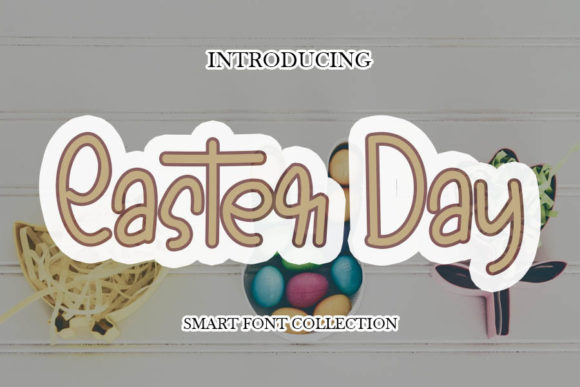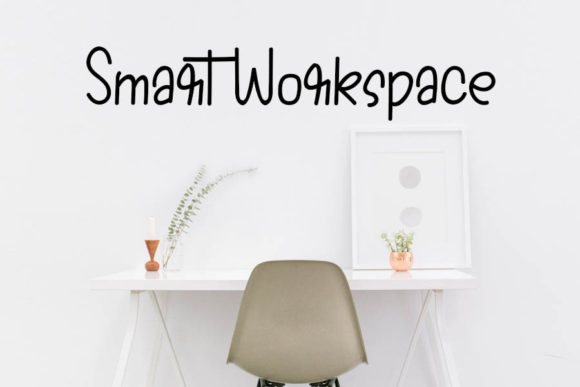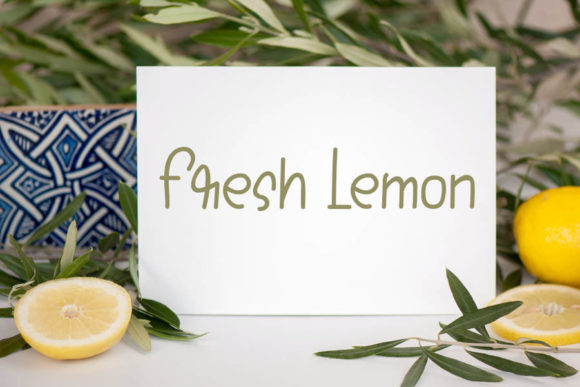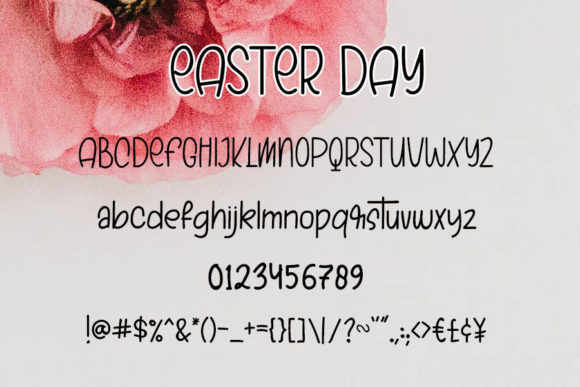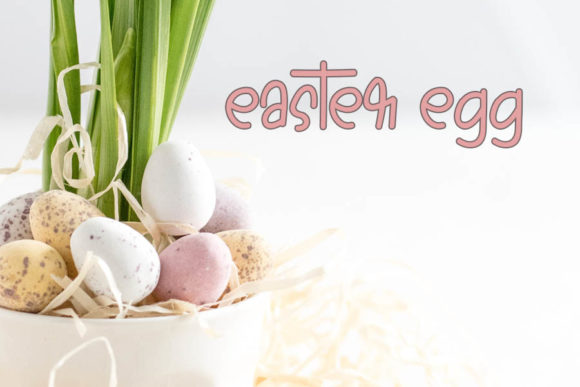
Easter Day Font
About Easter Day Font
Easter Day is a fun and relaxed handwritten font. Incredibly versatile, this font fits a wide pool of designs, elevating them to the highest levels. Add it confidently to your projects, and you will love the results.